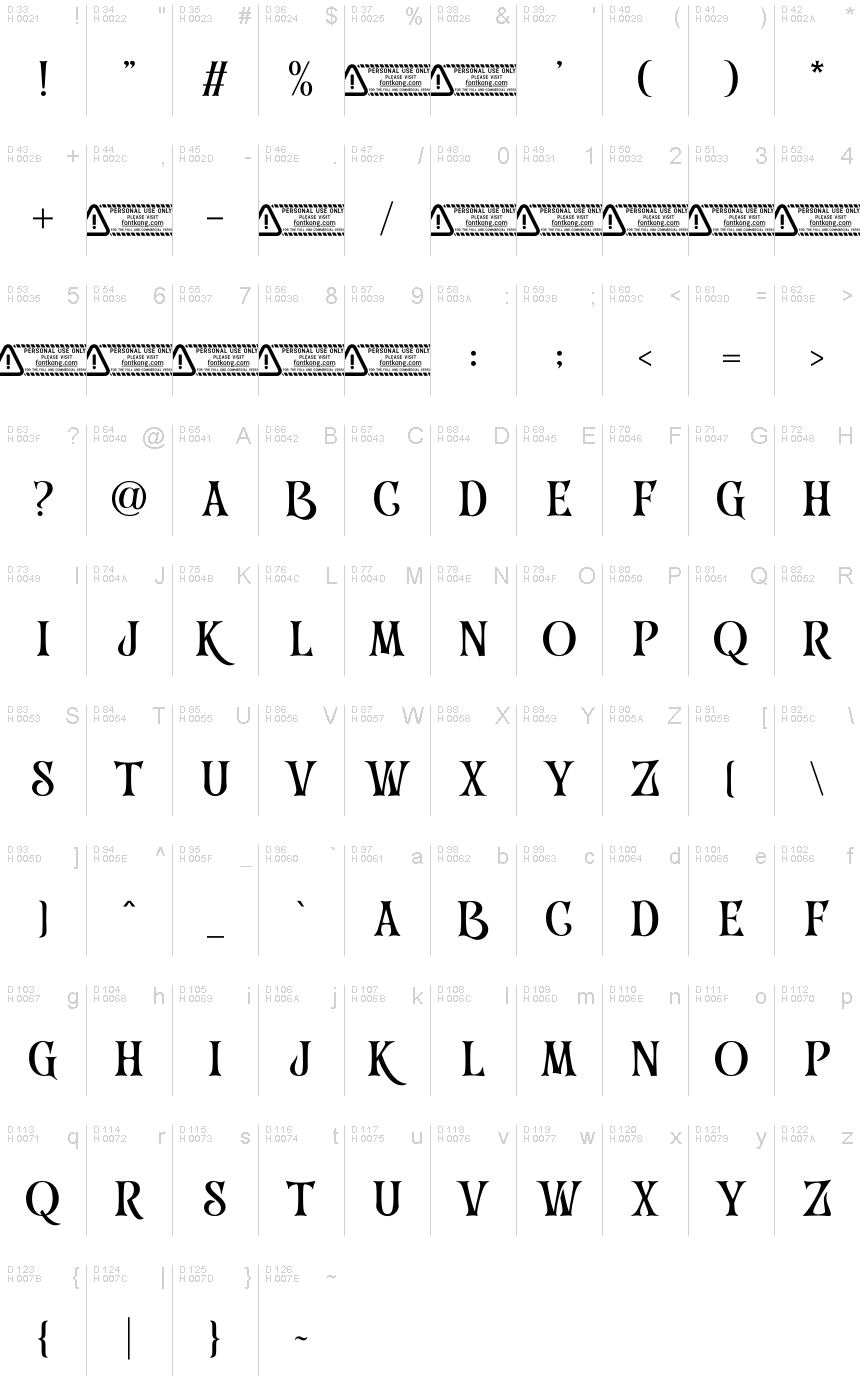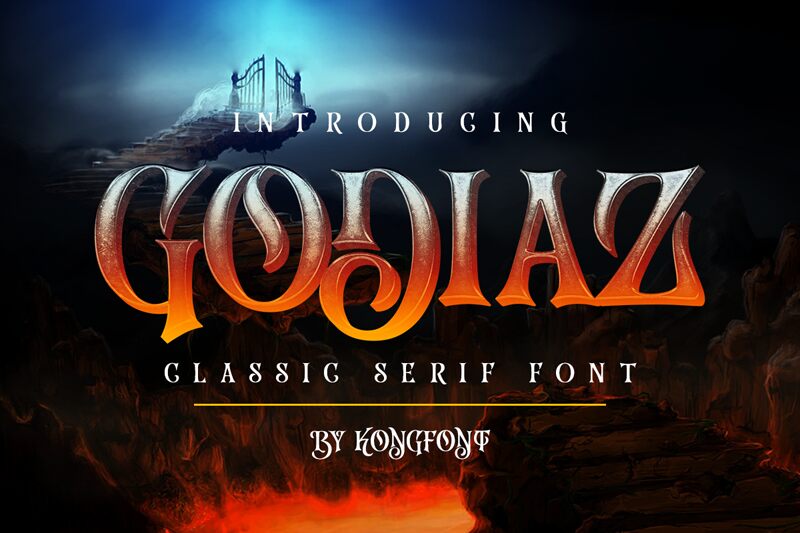
Godiaz
Godiaz emerges as a striking typeface from the creative repertoire of Kong Font, blending the mystique of gothic design with modern sensibilities. Its condensed width not only makes a bold statement but also ensures efficient use of space, enabling designers to create impactful visuals without compromising on readability.
Crafted with precision, Godiaz boasts sharp contrasts and elegant curves that echo the grandeur of historic gothic architecture. This font carries a distinctive character that can elevate various design projects, from branding to editorial work. Whether gracing the cover of a book or setting the tone for an event's branding, Godiaz's aesthetic appeal lies in its ability to convey seriousness and sophistication while retaining an air of contemporary chic.
Its versatility is evident as it stands out in both print and digital formats, making it an invaluable asset for designers aiming to infuse their work with a touch of gothic charm without veering into antiquity.